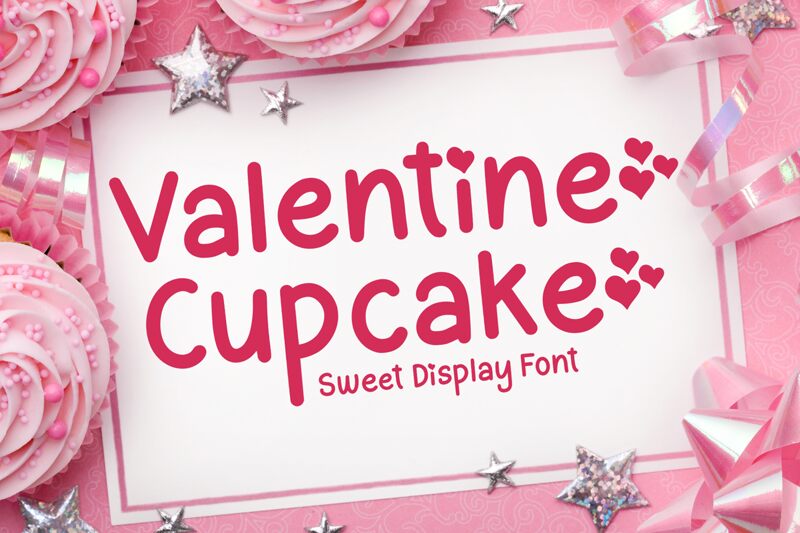
Valentine Cupcake font by AEN Creative Studio is a free holiday font inspired by the whimsical and lighthearted energy of the holidays. Casual and friendly, this font combines decorative elements with an approachable tone perfect for modern designs. Both inviting and fun, Valentine Cupcake is noticeably unique and ideal for any creative project that aims to spread positivity and cheer.
Construct company logos, product packaging, movie posters, book covers, and delicate watermarked branding with Valentine Cupcake. The font also adapts to contemporary applications such as user interface designs, mobile app designs, onboarding steps, and websites. Personal stationery items like cards and invitations also benefit from using this flawless free font.